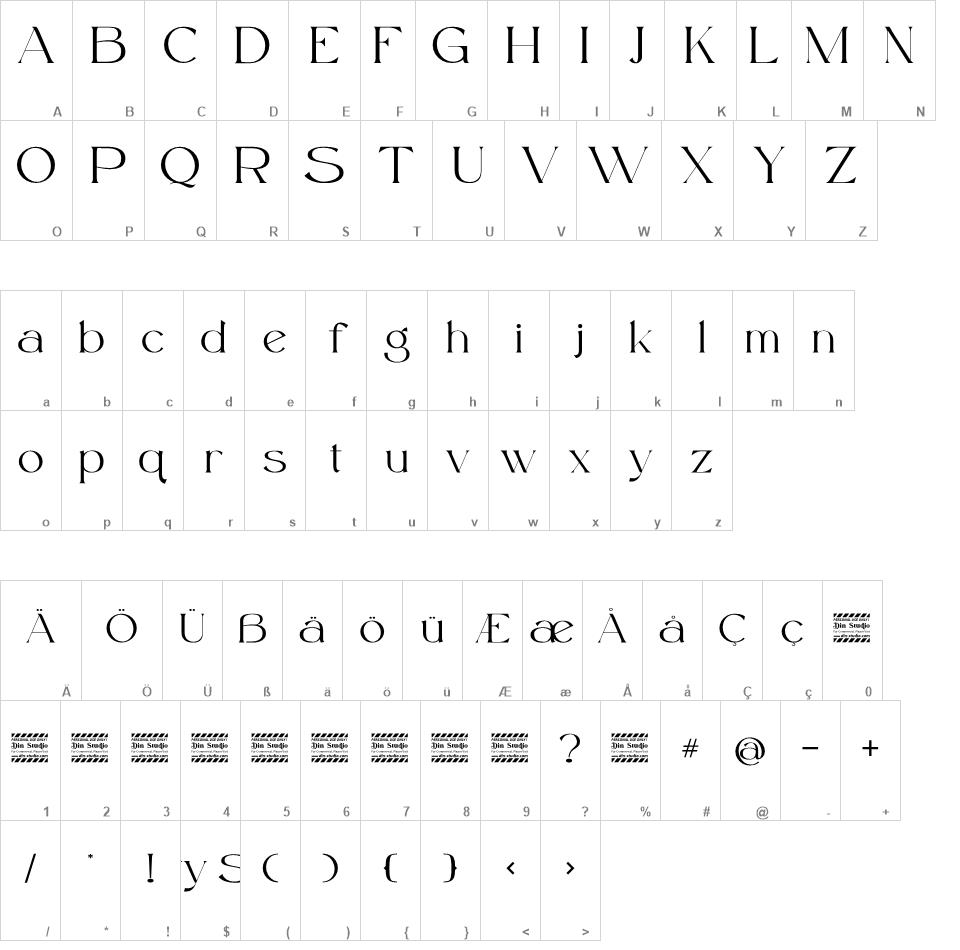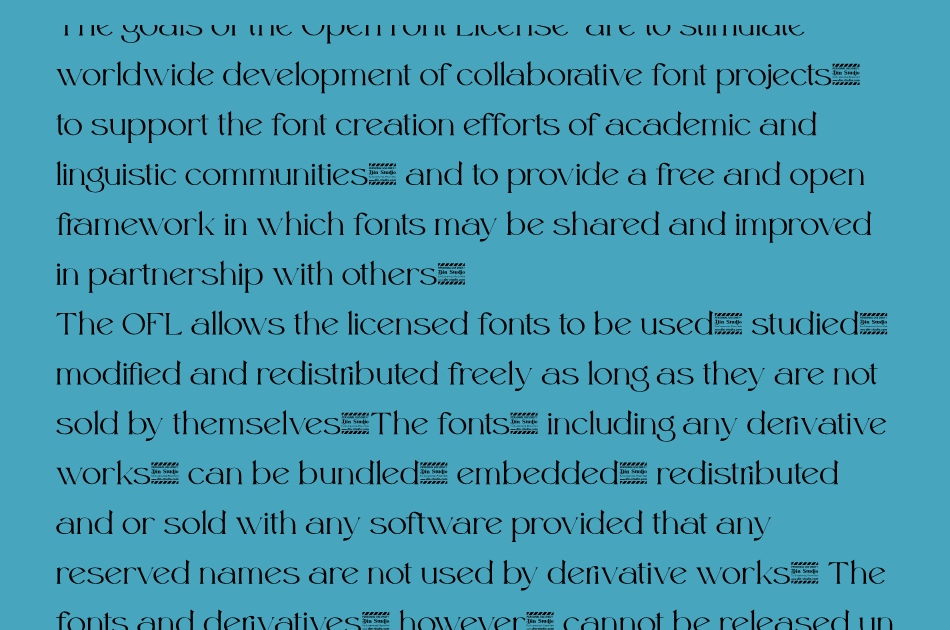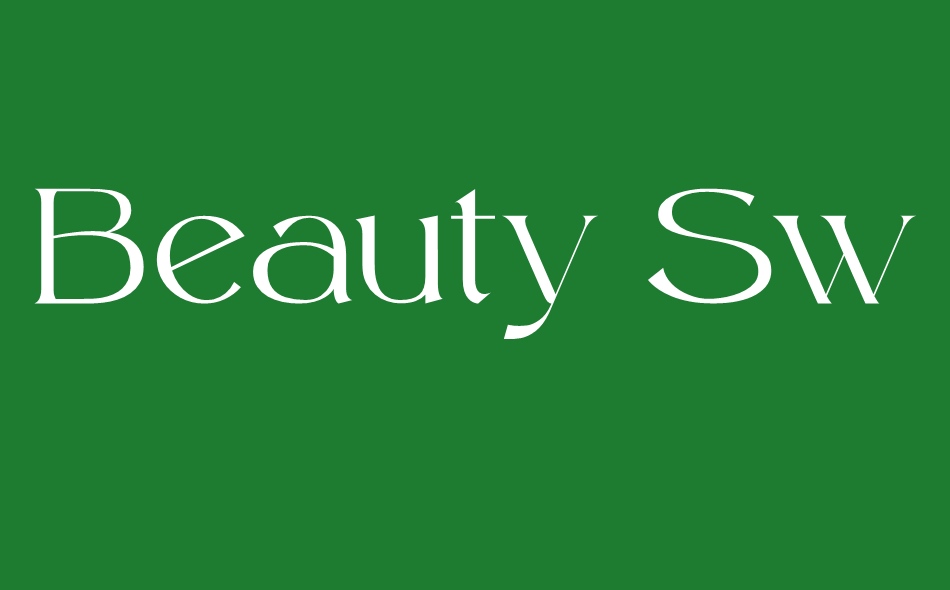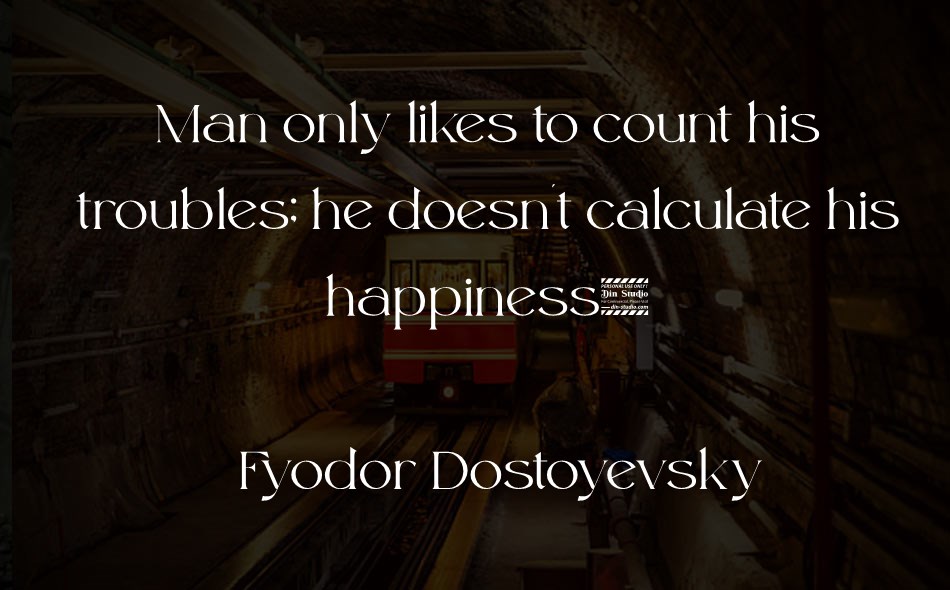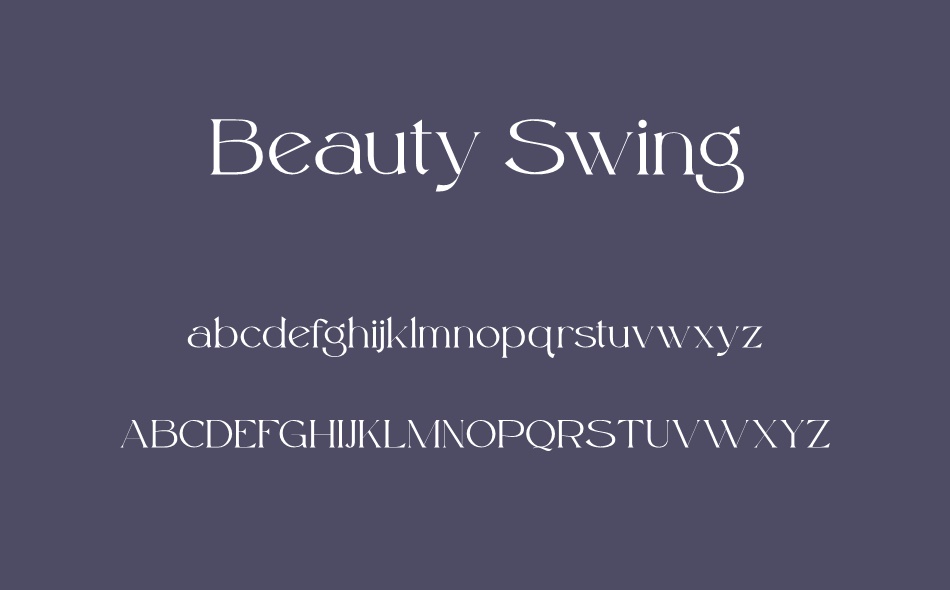
Beauty Swing font
Introducing Beauty Swing- A Serif Font
A fabulous, elegant, and modern serif font thatll engage your audience and make your branding stand out. This stylish font can be used for a host of different content needs and projects. Perfect for social media branding projects, fashion designs, printed quotes, or even as a stylish text overlay to any background image and many more!